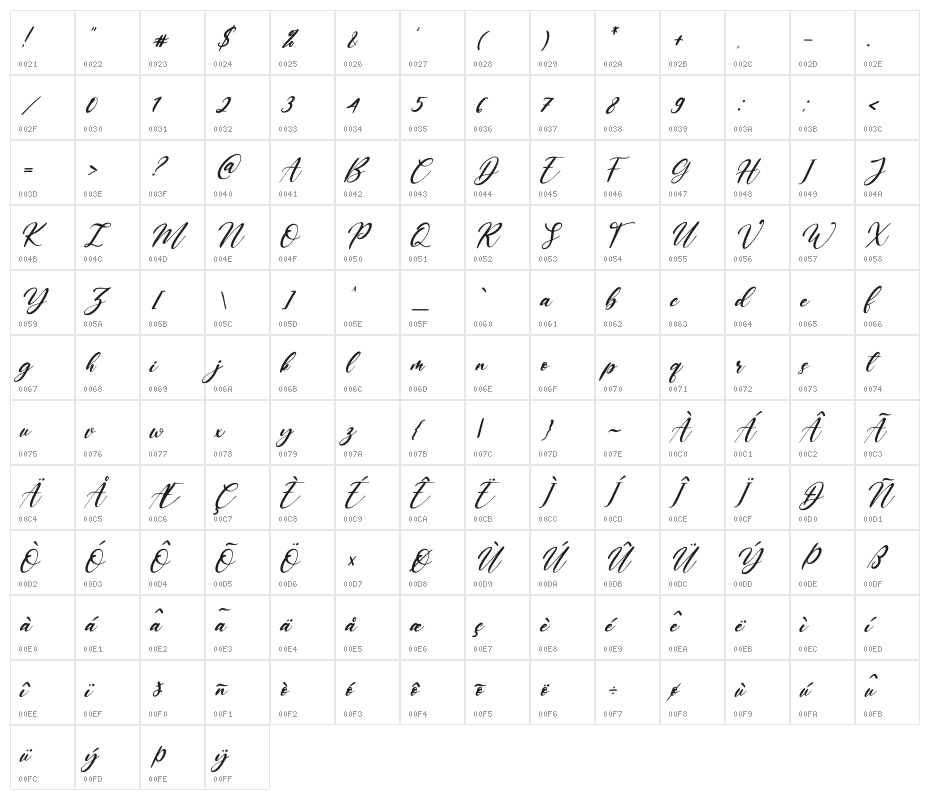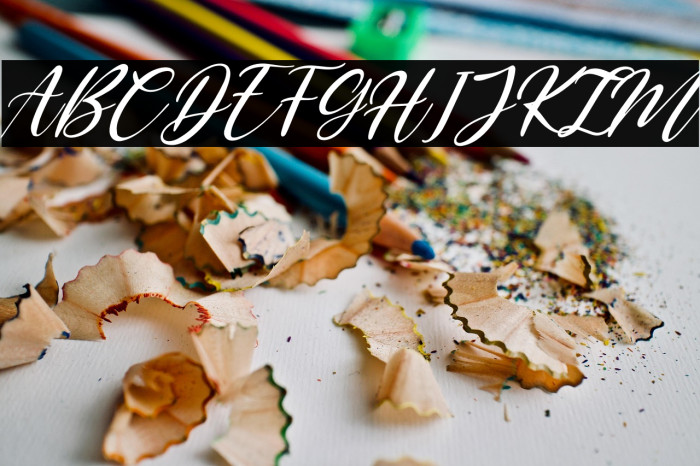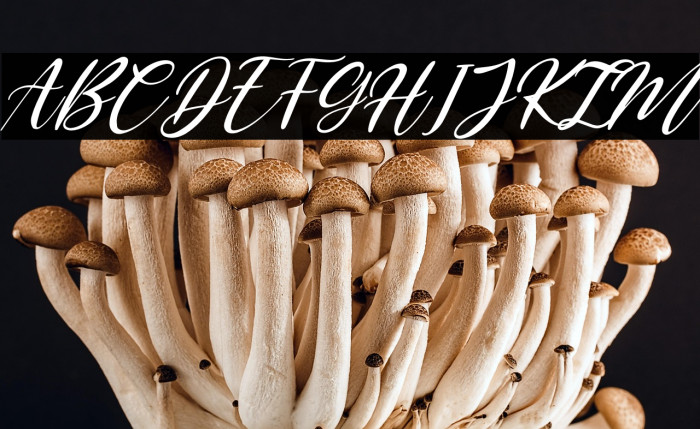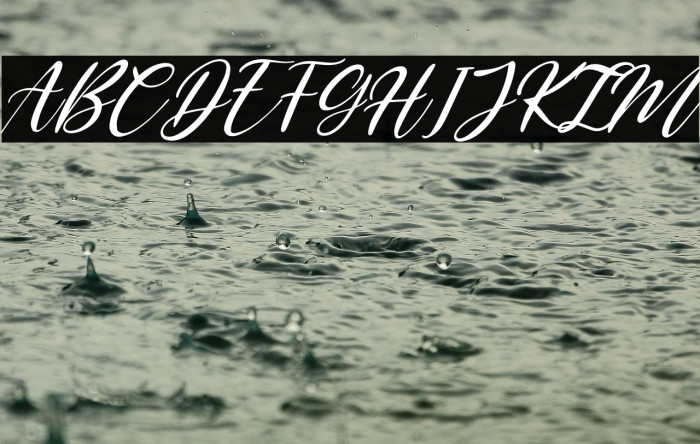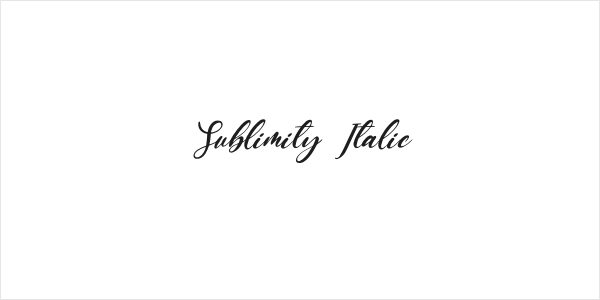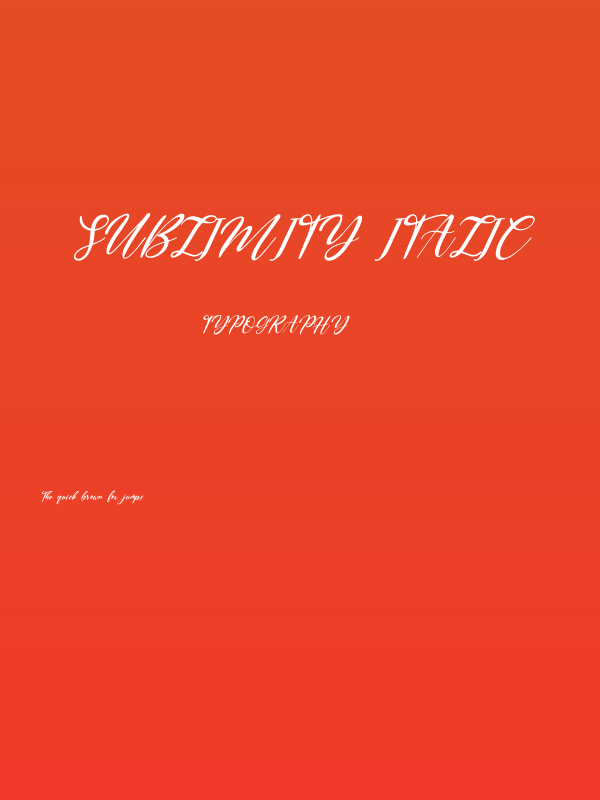
Sublimity Italic Font
Sublimity Italic Description
A flowing, elegant script font with a handwritten style, featuring smooth curves and a slight slant.
| Overall Style | Elegant, Decorative |
| Proposed Projects | Wedding invitations, elegant branding, personal stationery. |